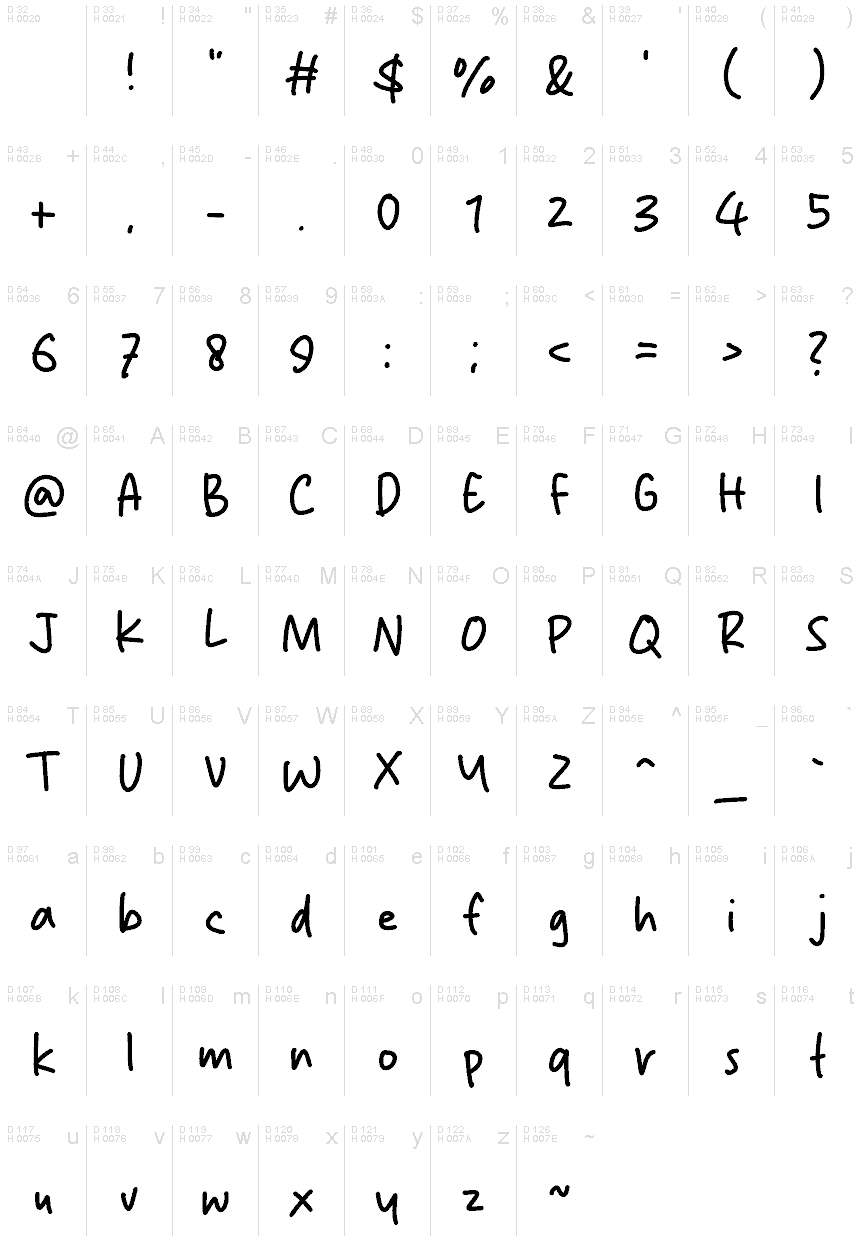
Roudway
Roudway font, designed by MJType, captures a casual and friendly feel with its modern handwritten style. The letters are flowing and serene with an aesthetic as soft as it is clean with simple lines from one character to the next. This free font has a perfect balance between feminine elegance and raw style.
This wonderful resource lends itself to Ada’s signature, logo designs for brands, packaging or label designs for small local shops, t-shirts and apparel businesses online or in stores, greeting cards for businesses or individuals looking to up their sophistication level and maintain handmade looks. Typography lovers will appreciate having this tool at their disposal for future projects thanks to how versatile its applications are.